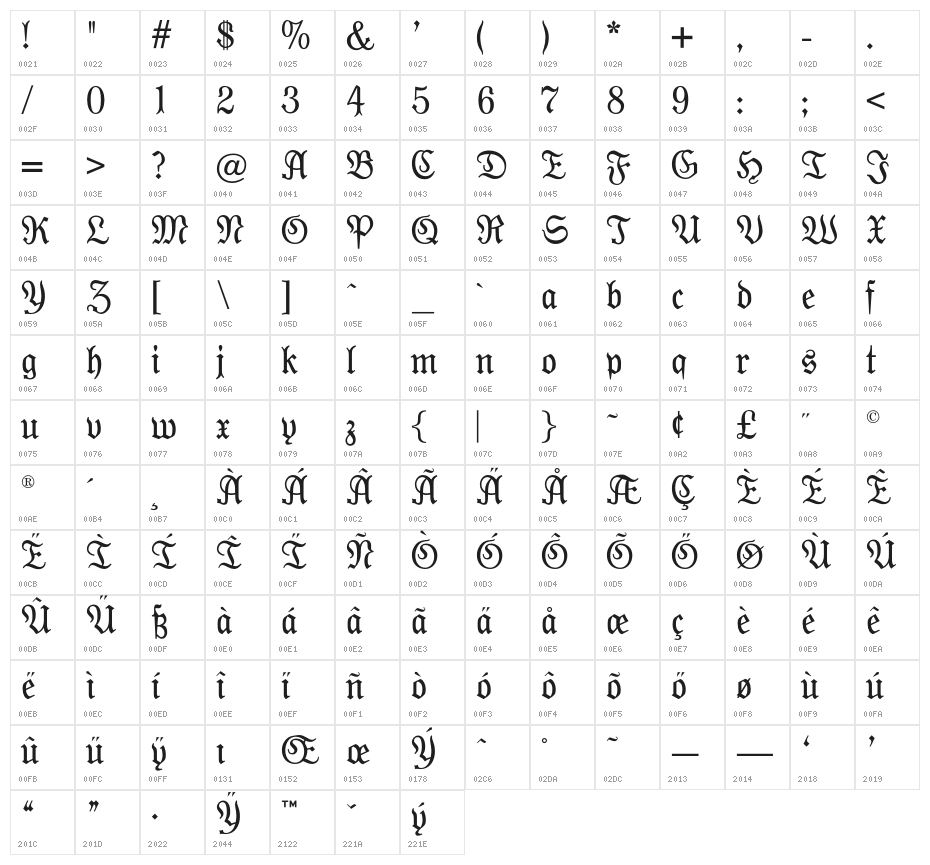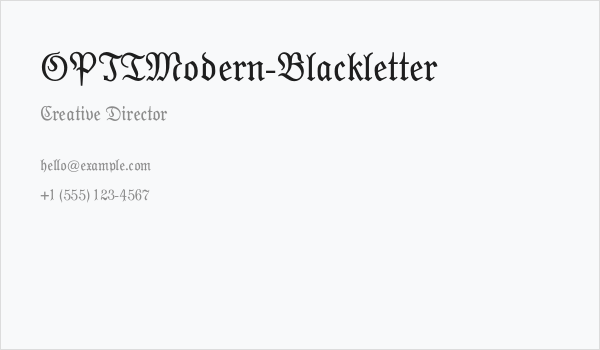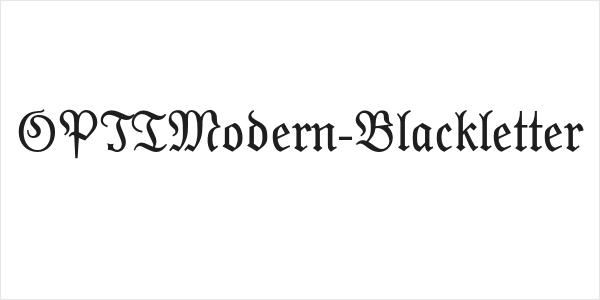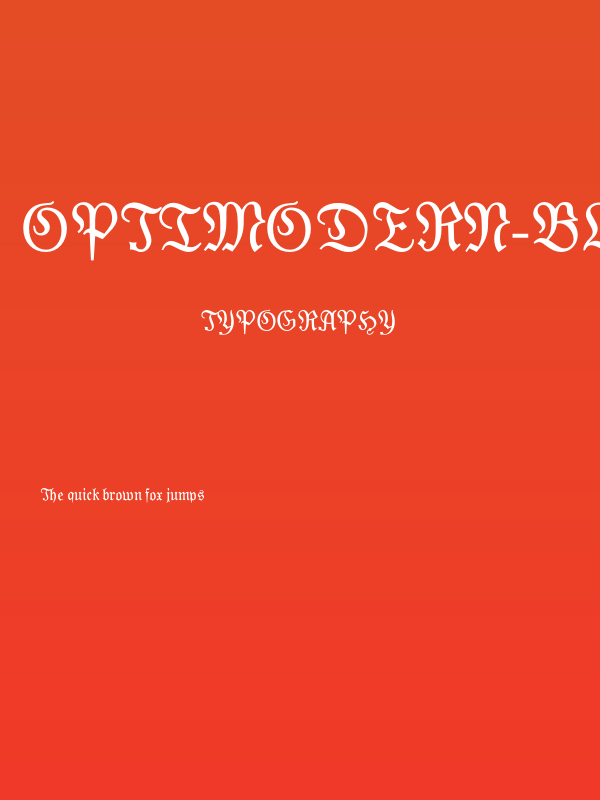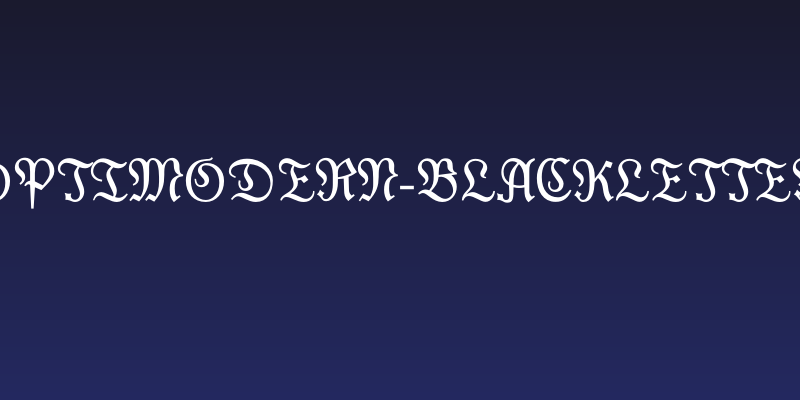
OPTIModern-Blackletter Font
OPTIModern-Blackletter Description
This font embodies a modern take on traditional blackletter styles, characterized by its intricate and ornate letterforms. The uppercase letters feature sharp, angular lines with decorative flourishes, while the lowercase letters maintain a consistent style with slightly softer curves. The numerals are bold and distinct, complementing the overall aesthetic. Special characters are designed with the same attention to detail, ensuring a cohesive look across all glyphs. This font's unique style makes it stand out, offering a blend of historical elegance and contemporary flair.
| Use Case | Headlines, Logos, Decorative text |
| Proposed Projects | Ideal for projects requiring a gothic or medieval touch, such as event posters, book covers, or branding for luxury products. |